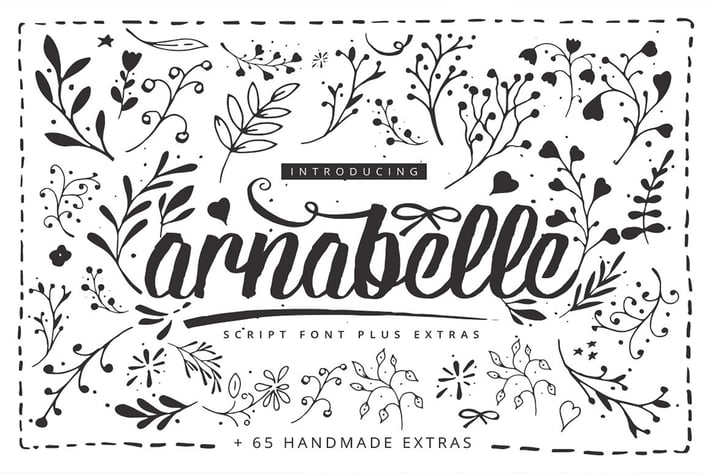
Arnabelle Script Font
Arnabelle Script Font + 65 Extras
A beautiful handmade script font loaded with 65 extras glyphs. This font is perfect for merchandise materials.